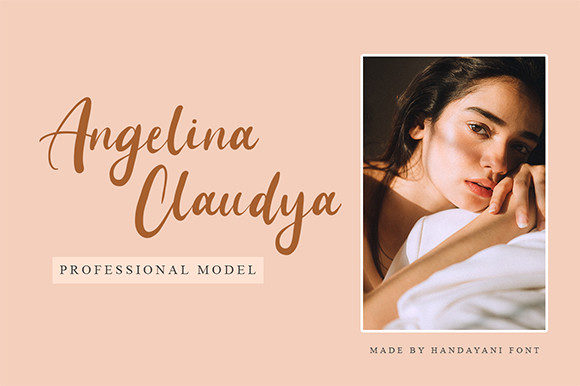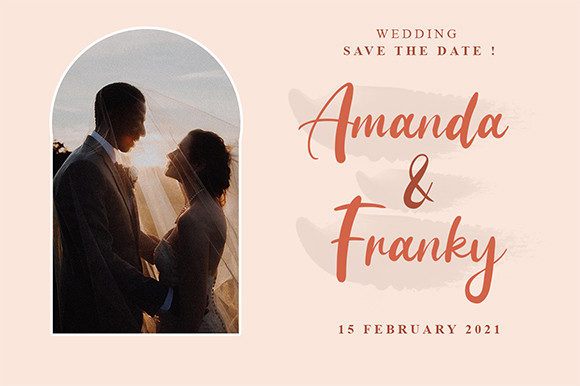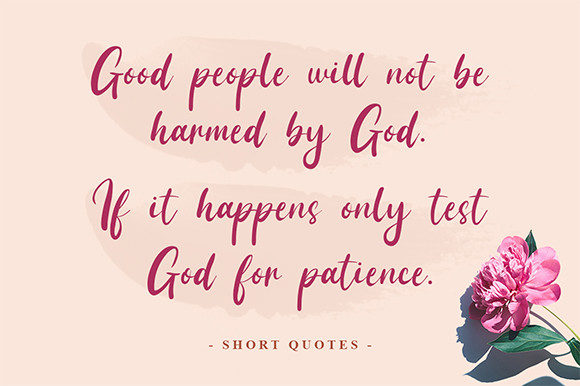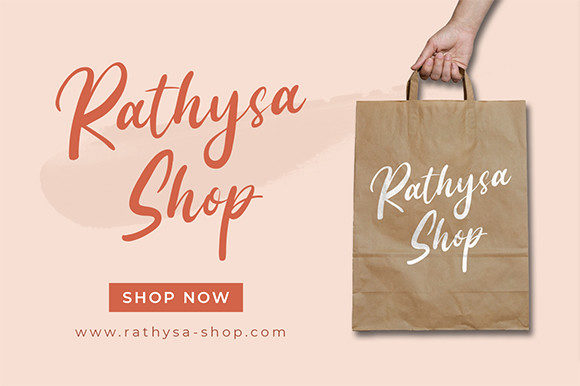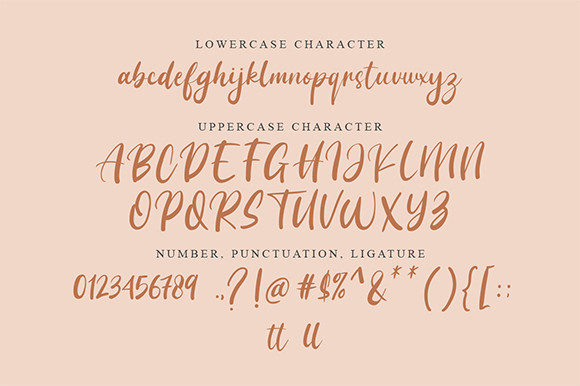
Introducing Handayani Font: The Perfect Choice for Personalized Designs
Are you a designer or crafter looking for a unique and elegant font to add a personal touch to your designs? Look no further than Handayani Font, a flexible, dainty, and cursive paint-brushed handwritten font that’s perfect for a variety of creative projects.
What Makes Handayani Font Special?
Handayani Font is a one-of-a-kind font that boasts a delicate and cursive style, reminiscent of handwritten brushstrokes. Its flexible and dainty nature makes it an ideal choice for designs that require a personal and elegant touch. Whether you’re working on wedding invitations, thank you cards, greeting cards, logos, or any other project that demands a unique and sophisticated look, Handayani Font is the perfect fit.
Weddings and special events are a perfect match for Handayani Font. The font’s elegant and cursive style adds a romantic and whimsical touch to wedding invitations, save-the-date cards, and other event-related designs. Its beautiful and flowing strokes will make your designs stand out and leave a lasting impression on your guests.
Great for Crafters and DIY Projects
Crafters and DIY enthusiasts will love Handayani Font for its versatility and charm. Use it to create personalized gifts, such as customized mugs, tumblers, and cards. The font’s handwritten style also makes it perfect for journaling and scrapbooking projects.
Key Features of Handayani Font
- Flexible and dainty: Handayani Font features delicate and cursive strokes that add a touch of elegance to any design.
- Paint-brushed handwritten style: The font’s unique brushstrokes give it a personal and artistic feel.
- Cursive and flowing: Handayani Font’s cursive style makes it perfect for designs that require a touch of sophistication.
- Multi-purpose: Use it for wedding designs, event invitations, greeting cards, logos, and more.
Tips for Using Handayani Font
- Use it for headlines and titles: Handayani Font is perfect for headlines and titles, adding a touch of elegance and sophistication to your designs.
Handayani Font is a beautiful and versatile font that’s perfect for designers and crafters looking to add a personal touch to their designs. Its flexible, dainty, and cursive paint-brushed handwritten style makes it ideal for a variety of creative projects, from wedding invitations to DIY crafts. With its unique features and endless possibilities, Handayani Font is sure to become a favorite in your design arsenal.